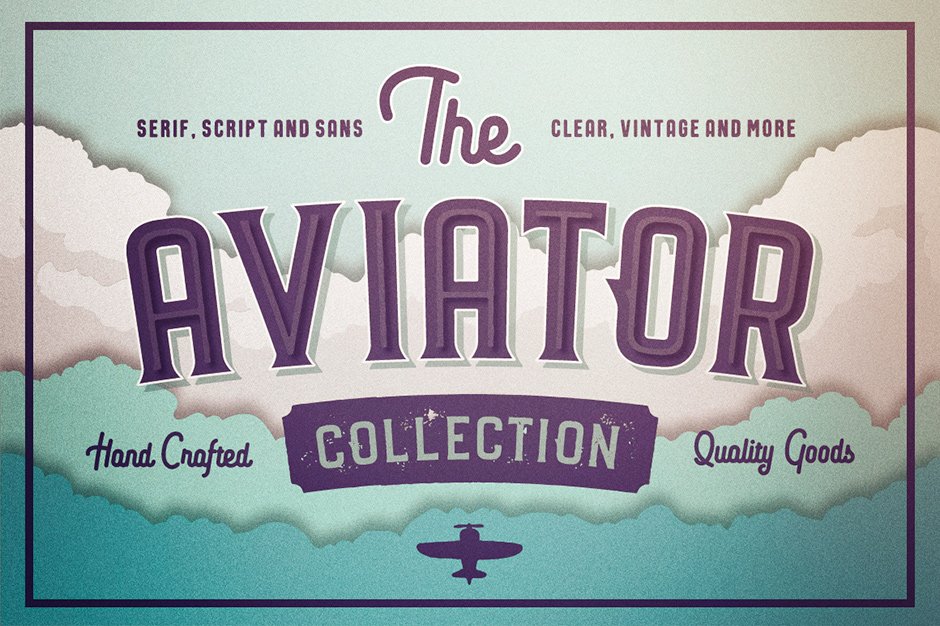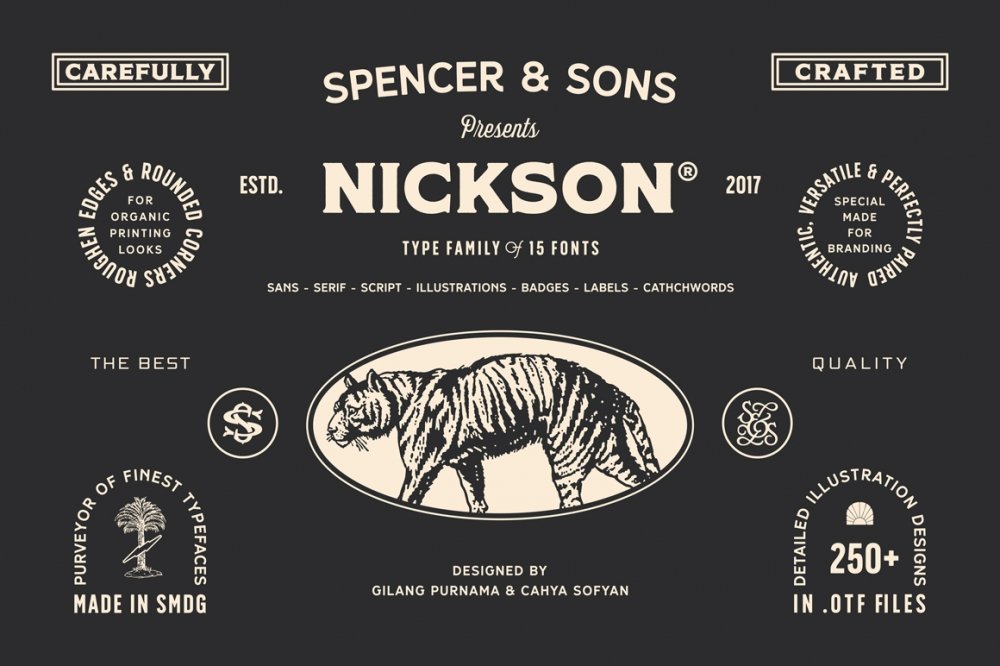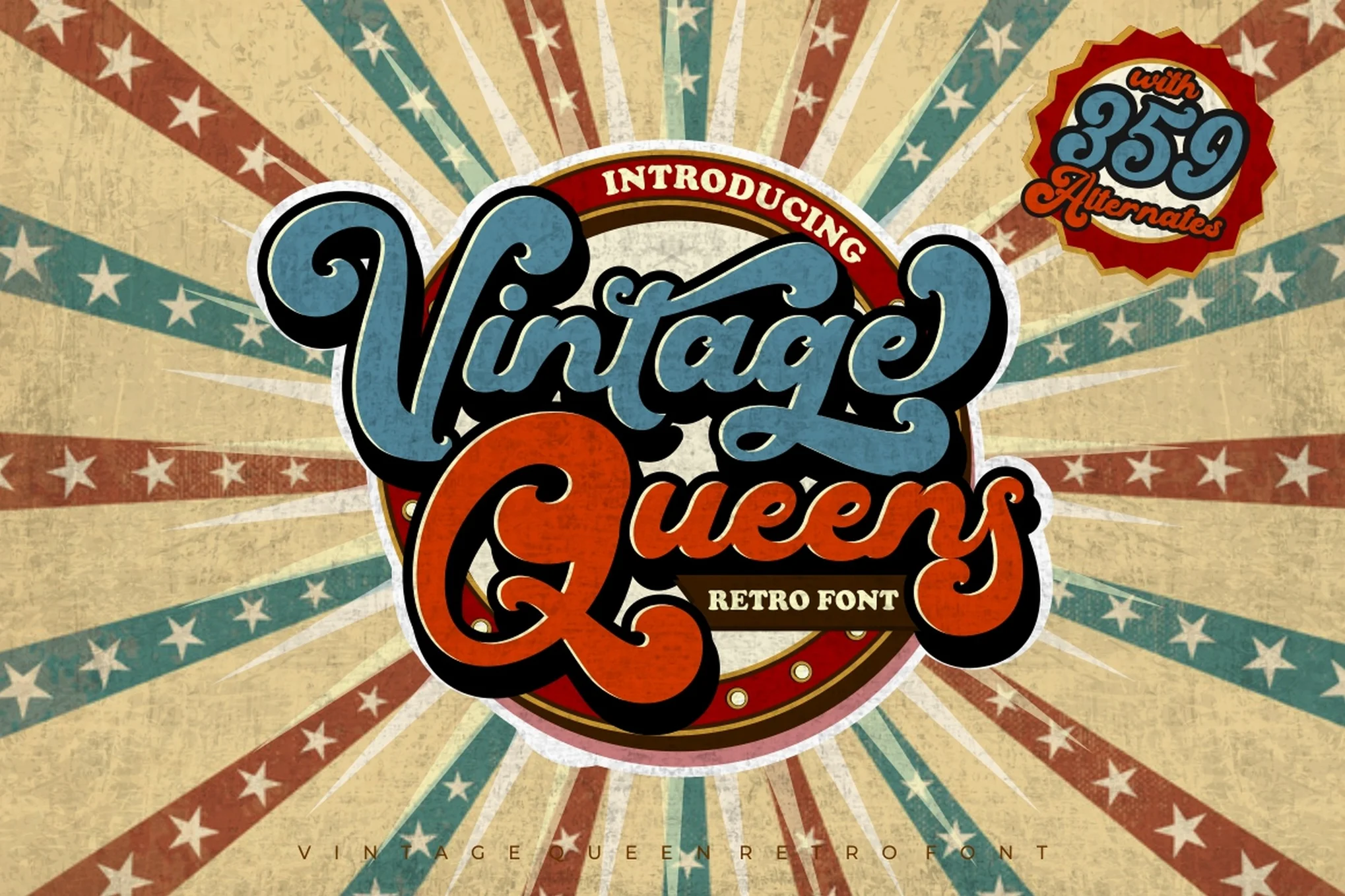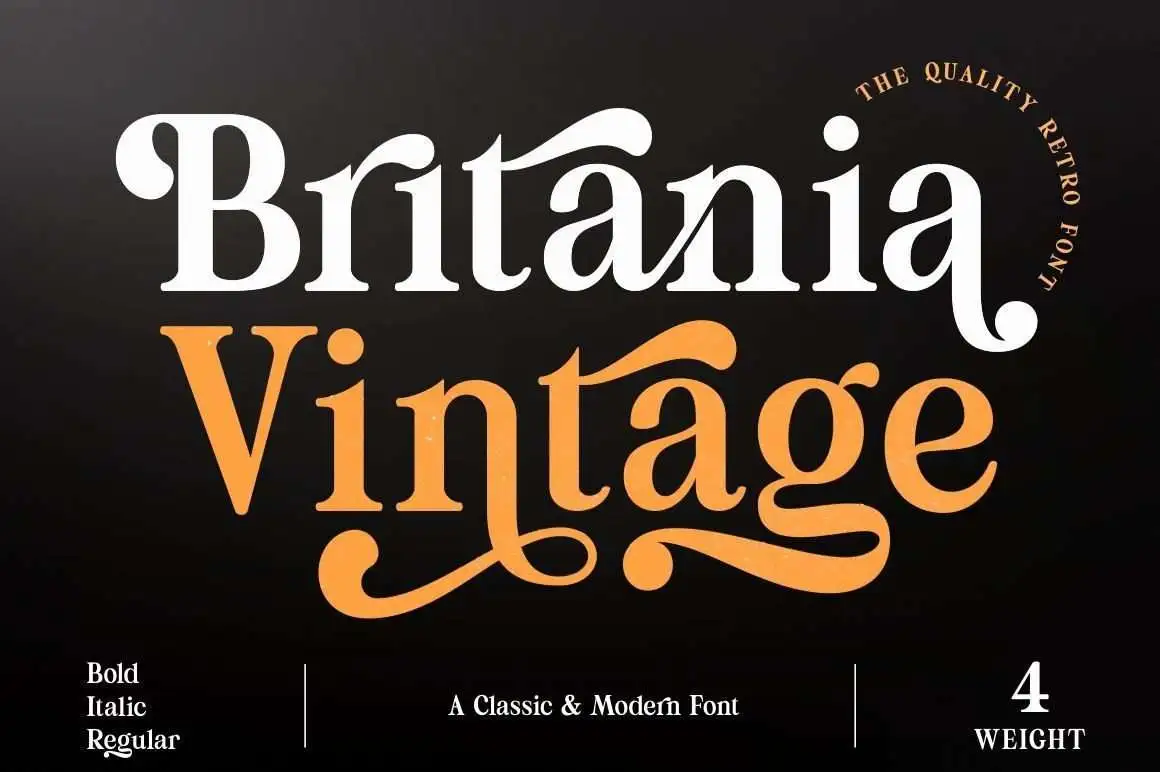
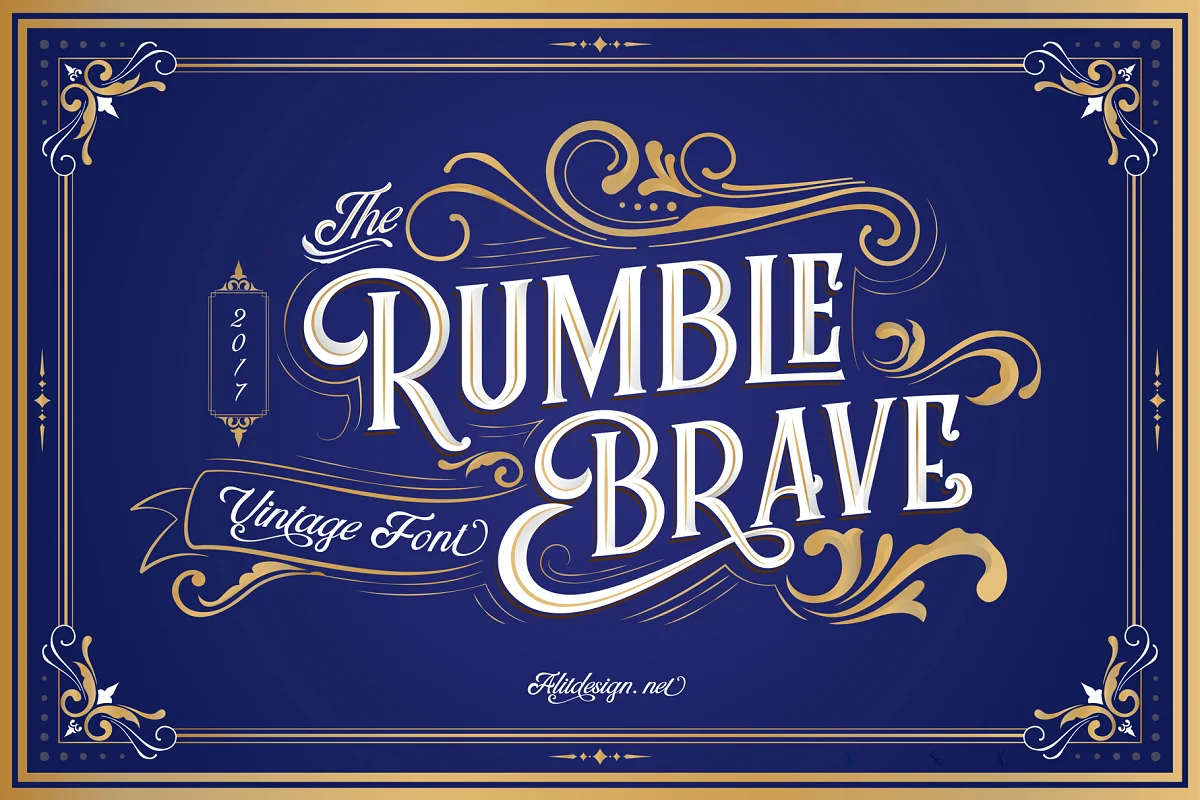
21 Best Vintage Fonts That Will Take Your Designs Back In Time
If you want to add a vintage flair to your designs, look no further! This blog post has collected the 10 best vintage fonts to take your designs back in time. These fonts are perfect for projects that require an antique or classic feel, and best of all, they’re all free to download and use! So dive in and start choosing the perfect font for your next project.
21 Best Vintage Fonts That Will Take Your Designs Back In Time
1. Falmera Pearson Vintage Font
Falmera Pearson Vintage Font is a beautiful and unique font that is perfect for any vintage-themed project. This font includes a full set of upper and lowercase letters, numbers, and punctuation marks. Falmera Pearson Vintage Font is available in both TTF and OTF formats.
2. Brughler Hand Drawn Vintage Font
Brughler is a hand drawn vintage font with a unique character. It includes upper and lowercase letters, numbers, and special characters. This font is perfect for creating vintage logos, labels, and other design projects.
3. Songster Vintage Typeface
Songster Vintage Typeface is a vintage typeface that is perfect for any vintage or retro-themed project. This font includes upper and lowercase characters, numbers, and punctuation marks.
4. Milkstore Vintage Font Collection
Introducing the Milkstore Vintage Font Collection! This stunning set of fonts features classic, vintage-inspired lettering that is perfect for any project. With a variety of styles and weights to choose from, this collection has everything you need to create beautiful, timeless designs.
Whether you’re looking for a sophisticated serif font for your wedding invitations or a playful script for your new blog header, you’ll find the perfect match in this collection. Each font is high-quality and expertly crafted, ensuring that your projects will lookprofessional and polished.
Explore the Milkstore Vintage Font Collection today and add a touch of elegance to your next project!
5. Arinoe Vintage Display Font
Arinoe Vintage Display Font is perfect for creating retro-style designs. This font features a vintage-inspired design that is perfect for adding a touch of nostalgia to your projects. With its high contrast and wide range of widths, Arinoe Vintage Display Font is perfect for headlines, logos, and other display use.
6. Ramenson Vintage Font
Ramenson Vintage Font is a beautiful, old-fashioned font that will give your text a classic look. This font is perfect for invitations, greeting cards, and other projects that need a touch of elegance. Ramenson Vintage Font is available in both regular and script styles.
7. EFCO Fairley Assorted Vintage Font Collection
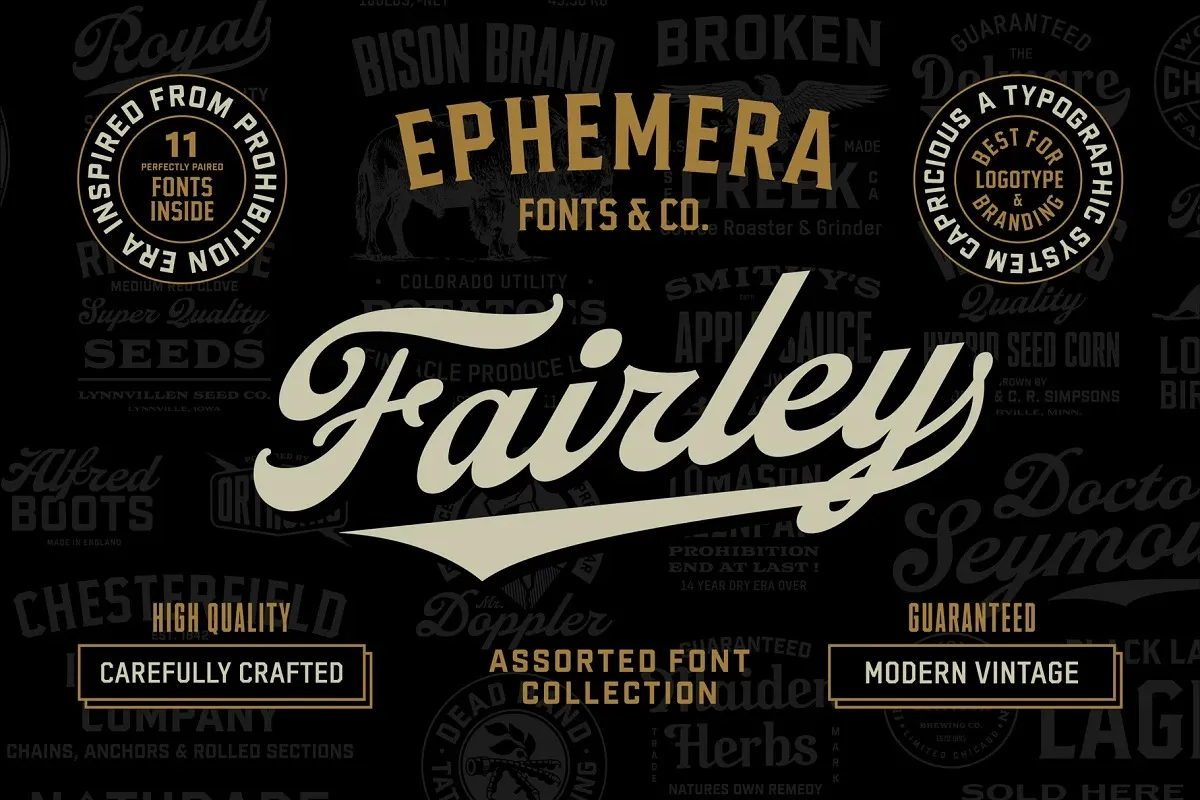
EFCO Fairley Assorted Vintage Font Collection is a set of fonts that were created in the early 1900s. The fonts are named after the EFCO company, which was founded in 1898. The collection contains two scripts, one display, and one text font. All of the fonts are free to use for personal or commercial purposes.
The EFCO Fairley Assorted Vintage Font Collection is a great way to add a vintage touch to your designs. The fonts are easy to read and have a unique style that is perfect for creating retro-inspired designs. If you are looking for a way to add some personality to your projects, then these fonts are a great choice.
8. Captain Nelson Vintage Font
Captain Nelson Vintage Font is a classic serif font that exudes elegance and sophistication. Its high contrast letters are perfect for creating headlines and titles that stand out from the crowd. Captain Nelson Vintage Font is available in both regular and italic styles.
9. Caltons Vintage Typeface
Caltons Vintage Typeface is a classic serif typeface that has been around for centuries. The Caltons family has been in the business of making typefaces for generations, and their vintage typeface is one of their most popular fonts. Caltons Vintage Typeface is perfect for any design project that requires a touch of elegance and sophistication.
10. Wilden Handdrawn Vintage Typeface
Wilden Handdrawn Vintage Typeface is one of the best vintage fonts around. It’s perfect for any project that needs a touch of class and sophistication. Wilden Handdrawn Vintage Typeface is available for both personal and commercial use.
Wilden Handdrawn Vintage Typeface is an excellent choice for any project that requires a vintage or antique look. The font includes upper and lowercase letters, numbers, and punctuation marks. Wilden Handdrawn Vintage Typeface is perfect for invitations, flyers, and posters.